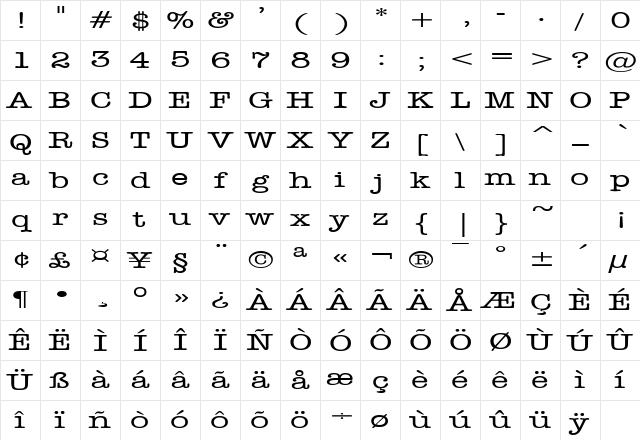
Complete DatelineExtended Regular glyph index. Displaying only characters natively supported by DatelineExtended Regular font.
DatelineExtended is a composed and adaptable typeface that performs quietly and consistently across a wide range of design contexts.